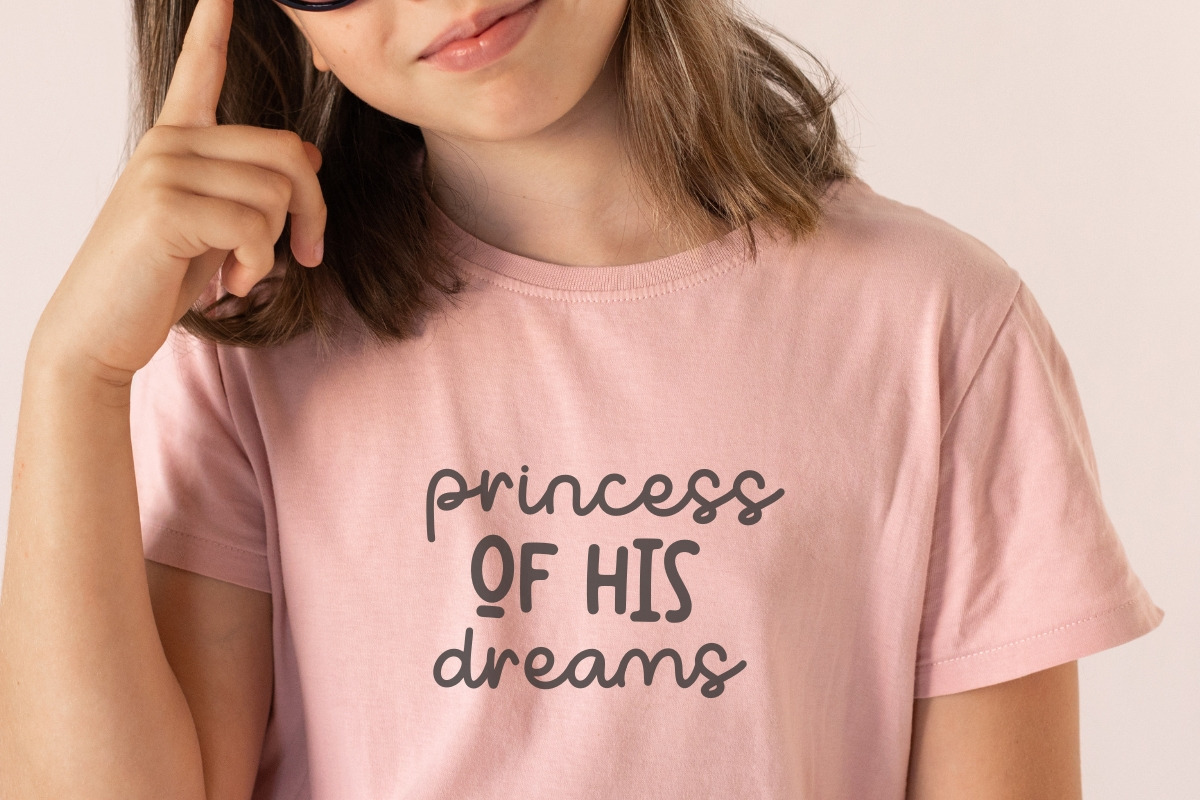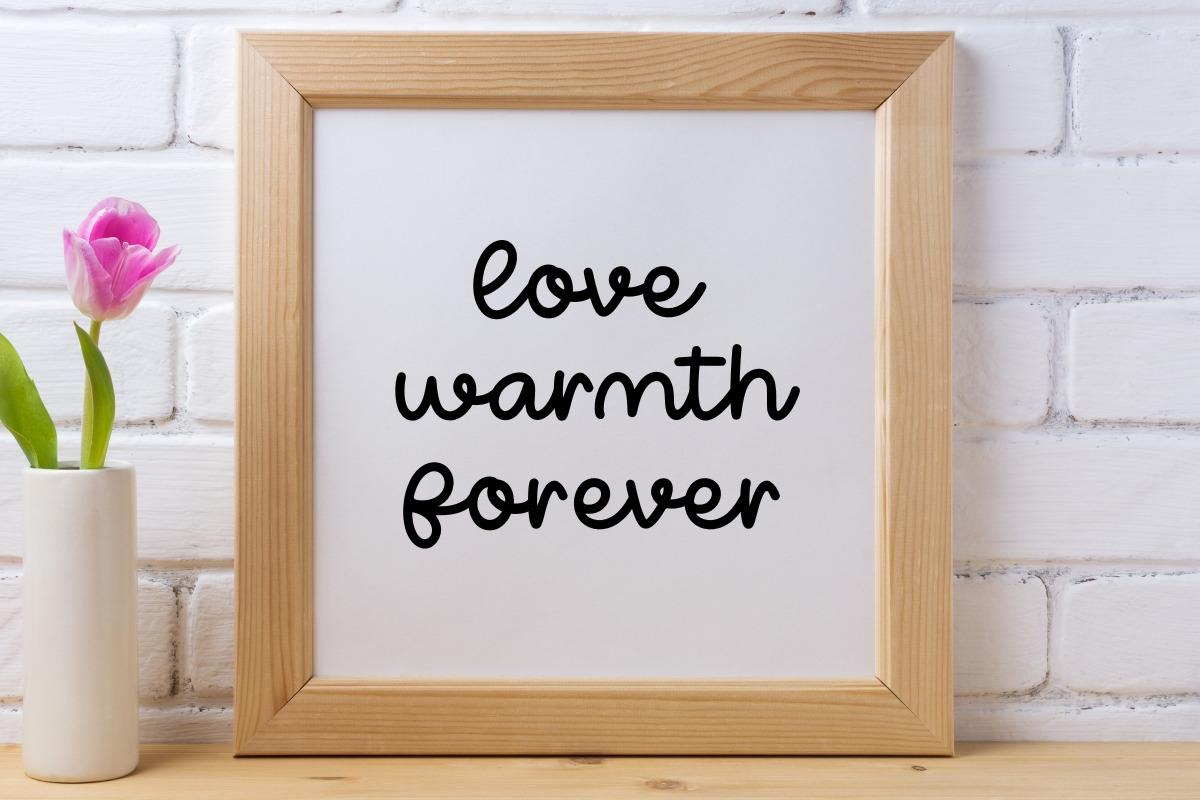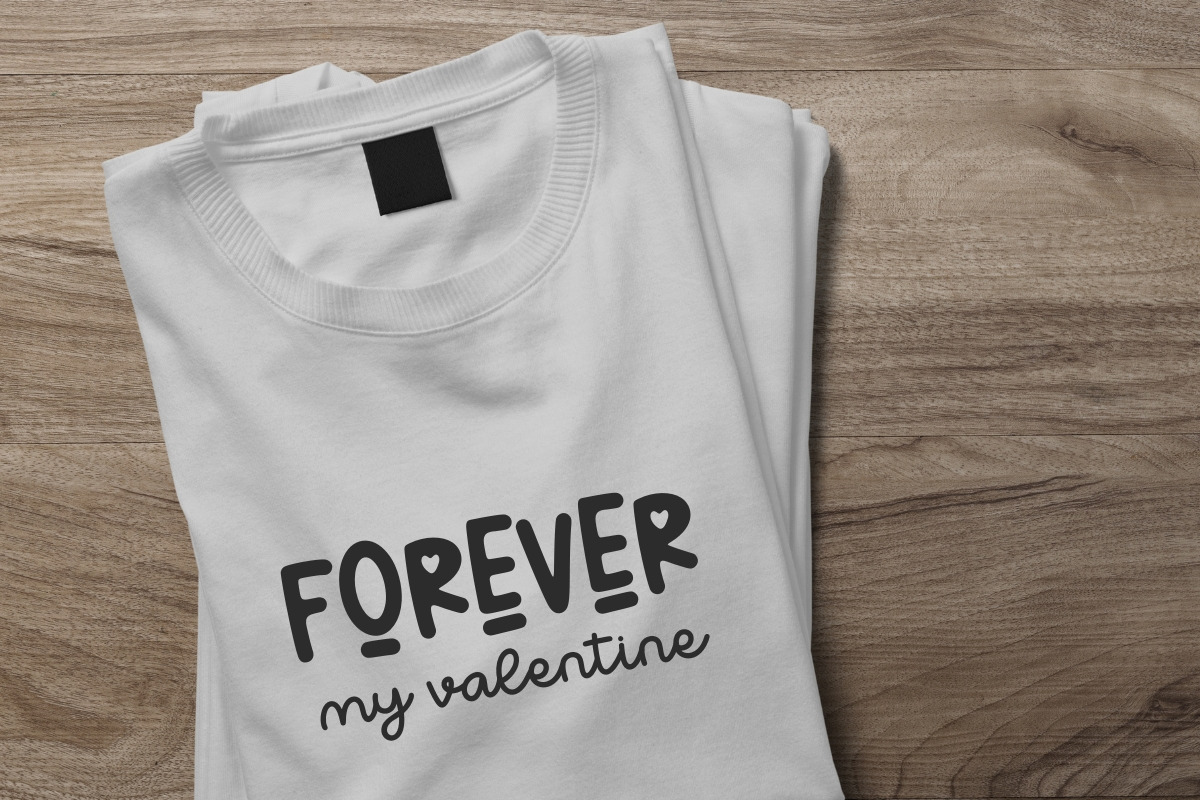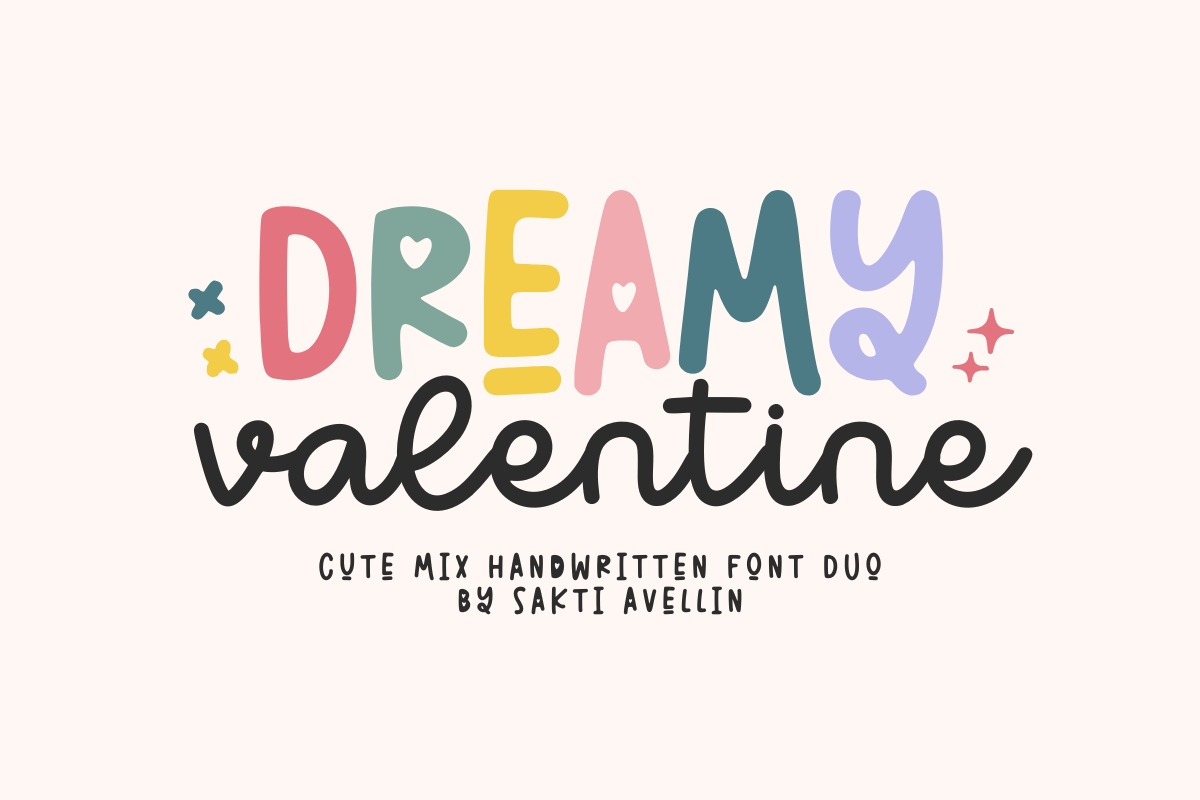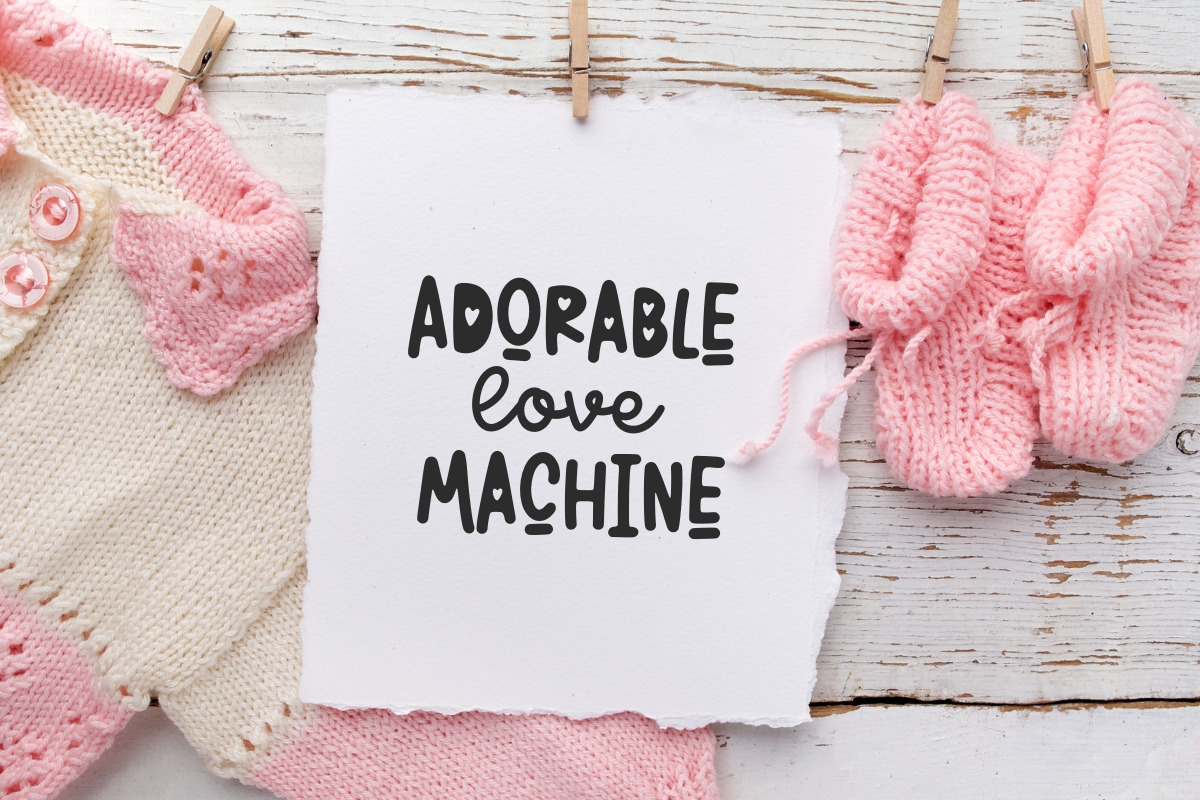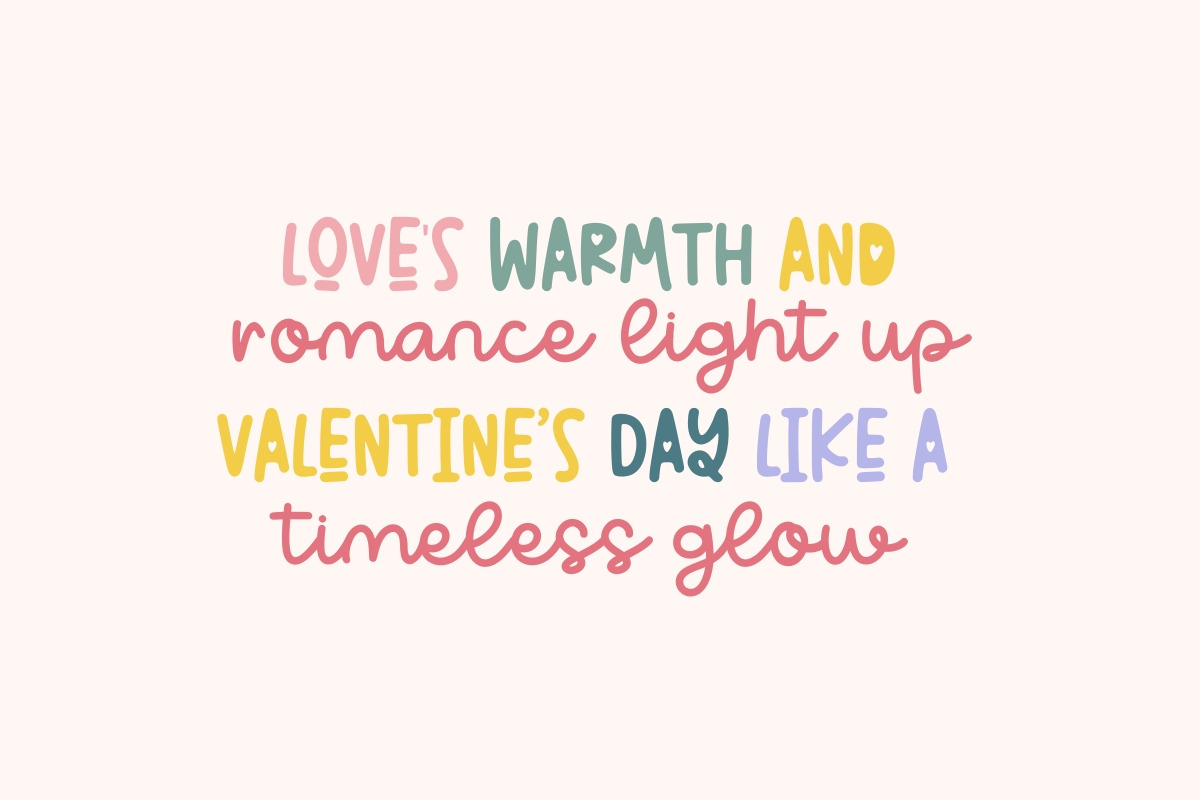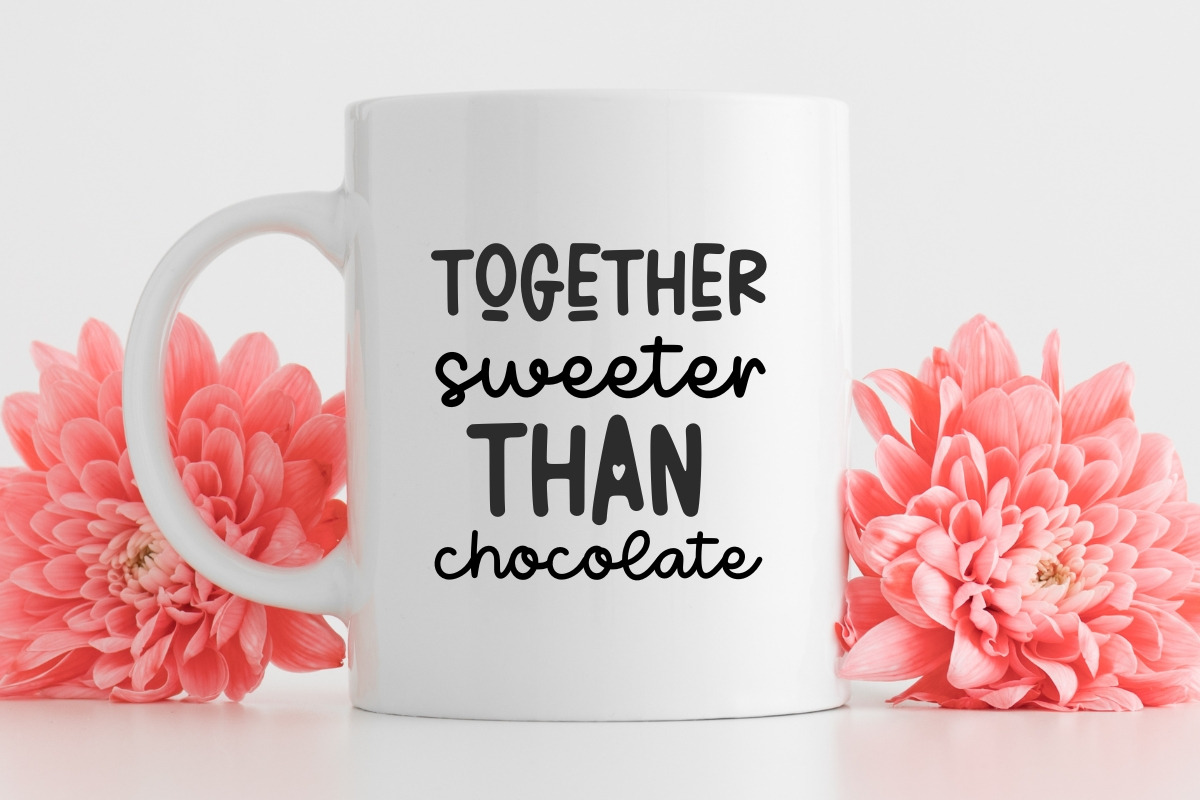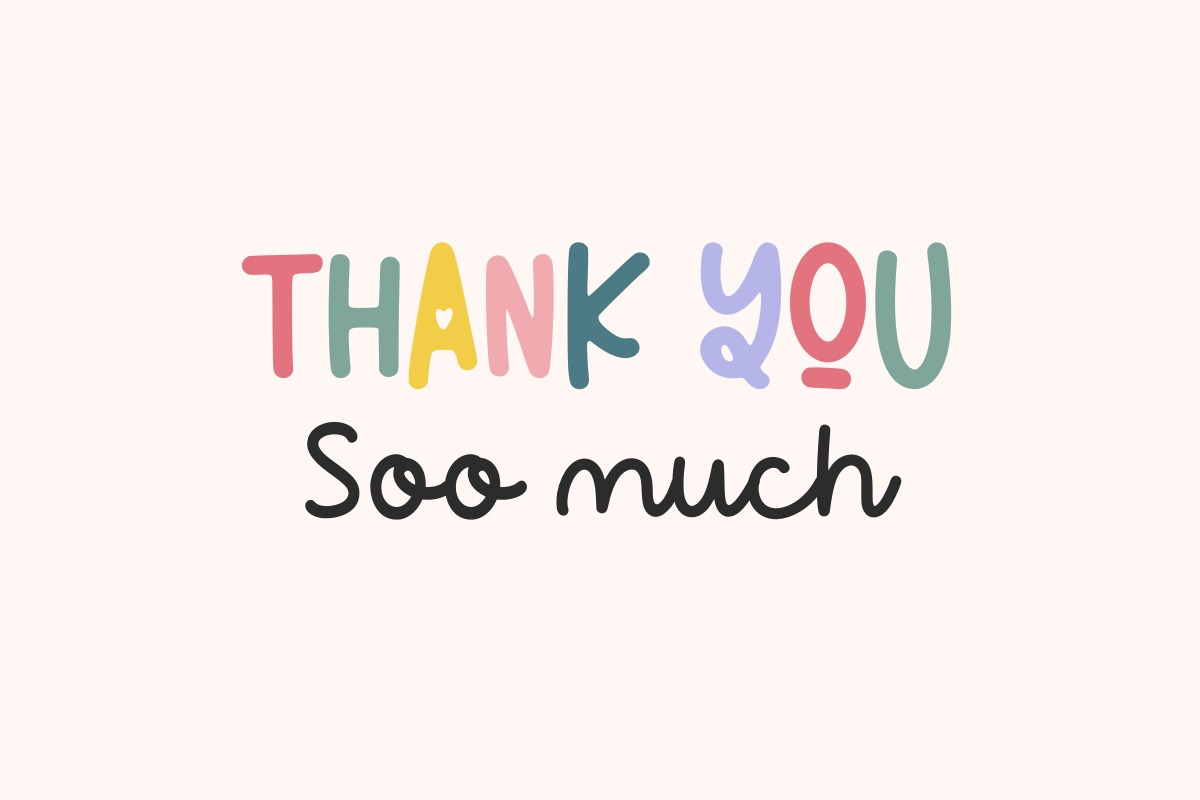
Dreamy Valentine - Cute Mix Font Duo
Dreamy Valentine is an enchanting cute mix handwritten font duo that captures a perfect blend of romance and playfulness. This versatile pairing features a whimsical chunky display font and a graceful modern script font, ideal for captivating font combinations. It is essential for Valentine's Day designs, wedding invitations, charming feminine logos, heartfelt greeting cards, kids' branding, and sweet social media graphics. This duo offers high versatility and a lovely, contemporary aesthetic, making it a strong choice for seasonal fonts and everyday designs. Fall in love with your projects using this delightful romantic font pair!